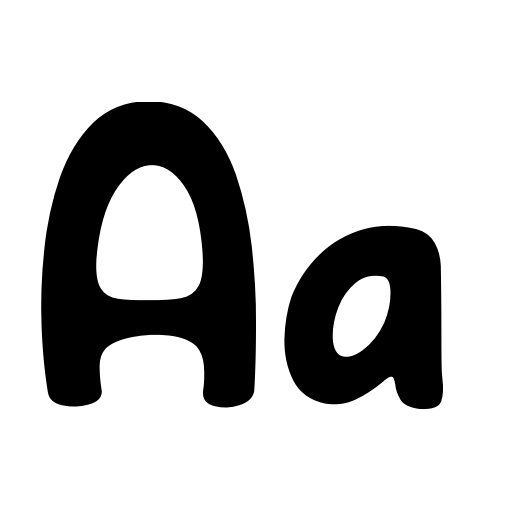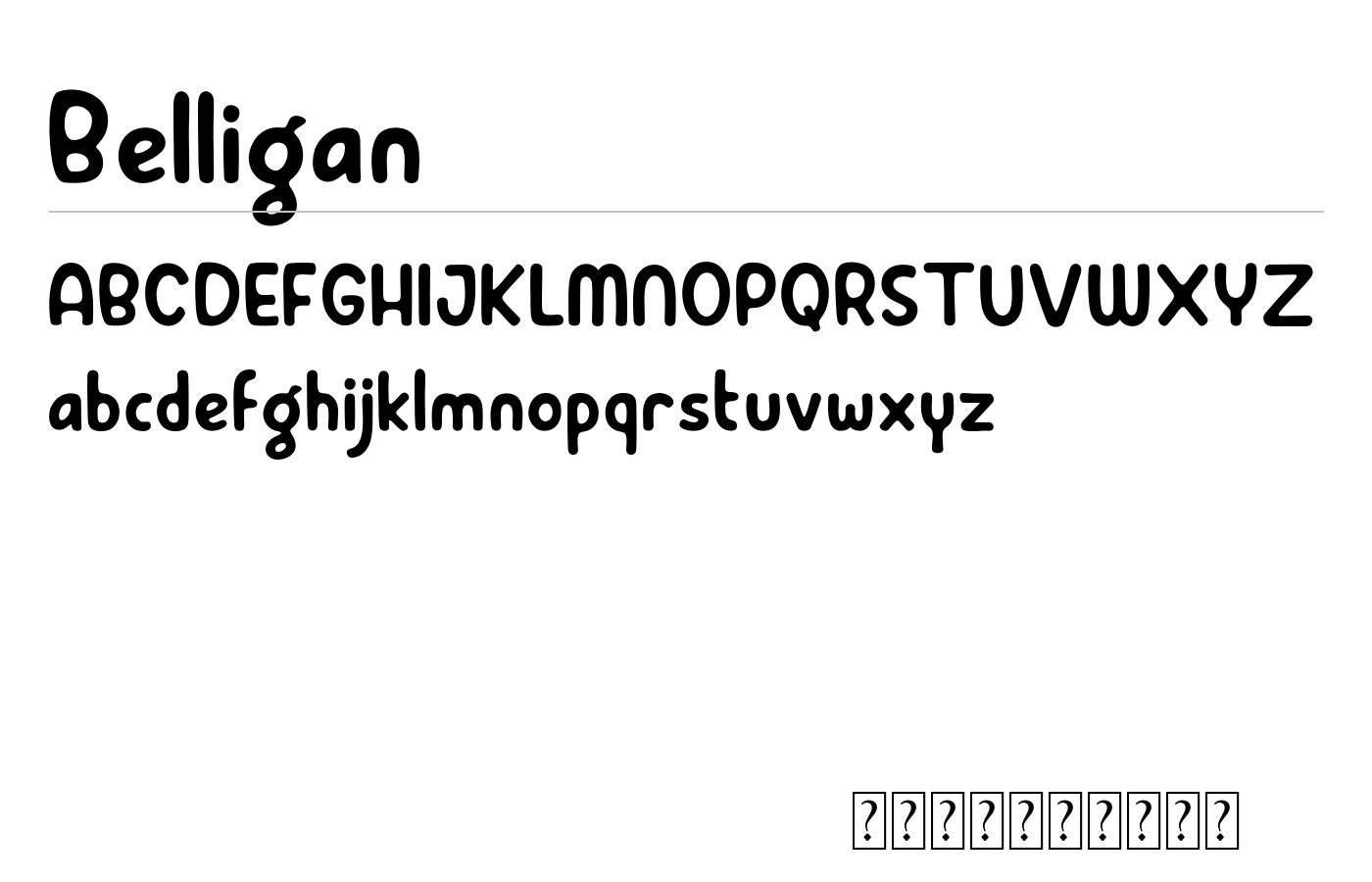
Belligan is a playful, rounded sans serif font with a friendly and approachable personality, characterized by its soft, thick strokes and casual letterforms. Its medium weight and wide, open shapes make it highly legible, perfect for creating cheerful headlines, branding for children's products, or informal designs that need a warm, inviting feel. This font works well in contexts where a lighthearted and fun impression is desired without sacrificing clarity.
Belligan Font
About Belligan Font